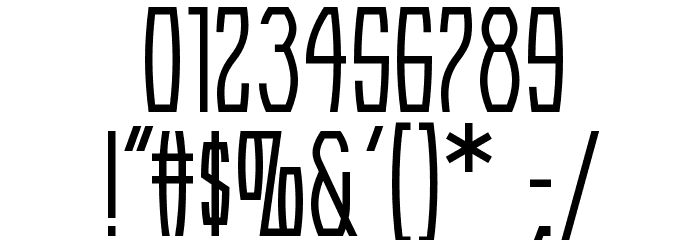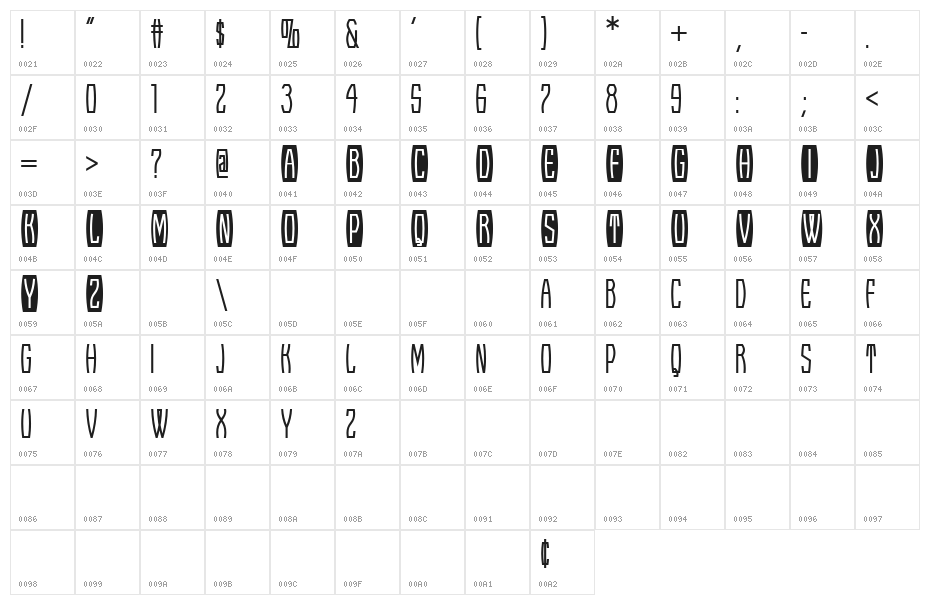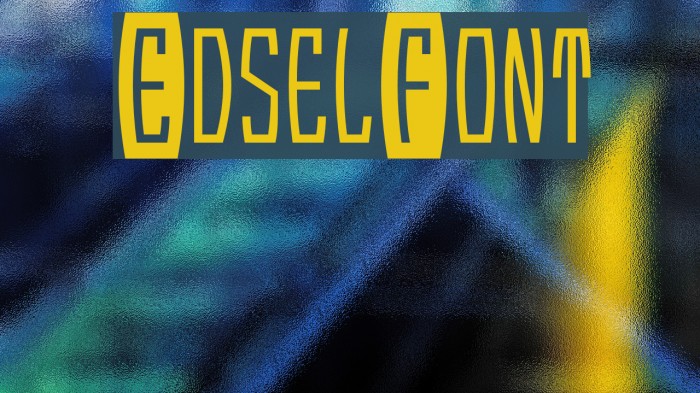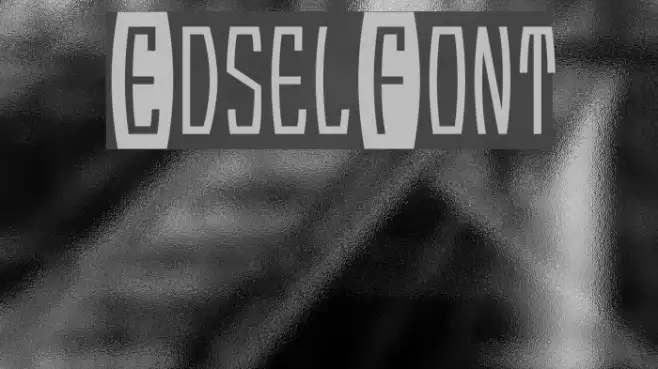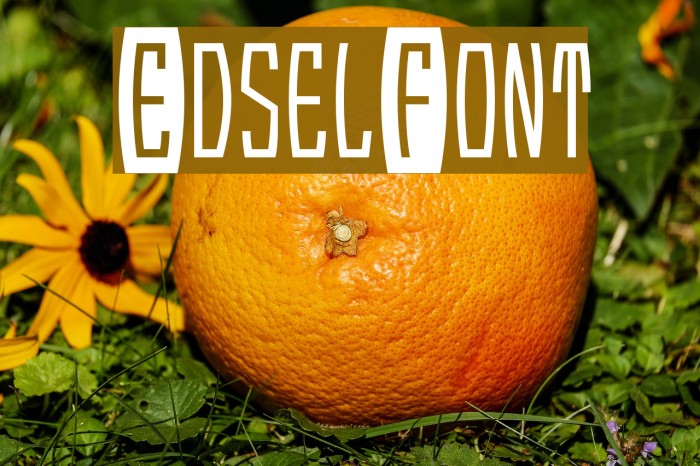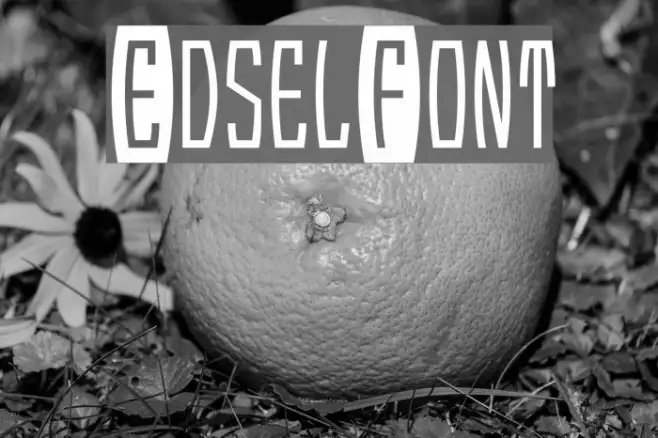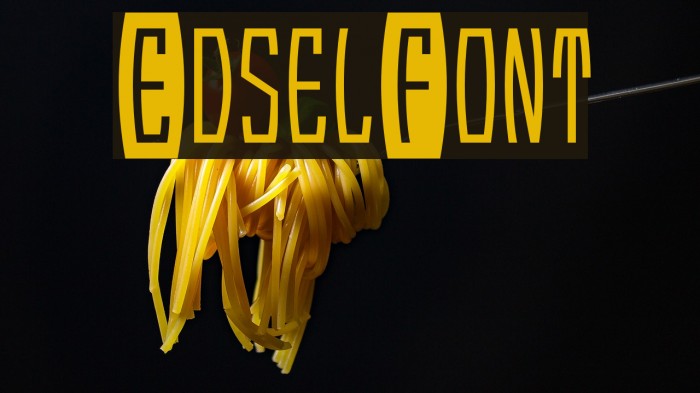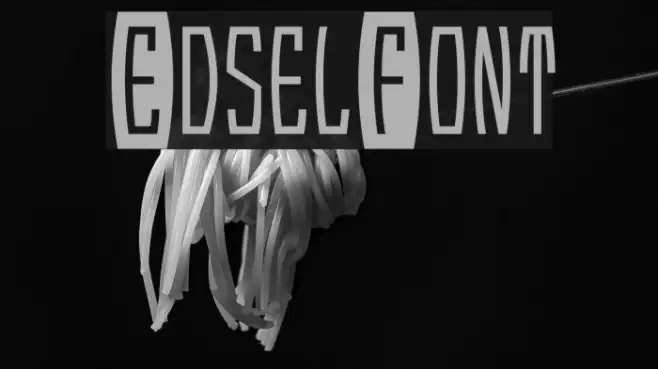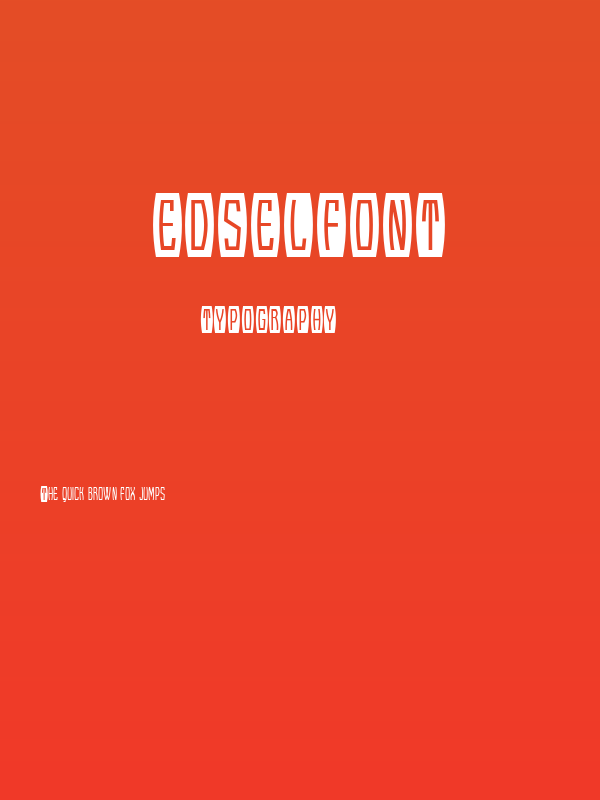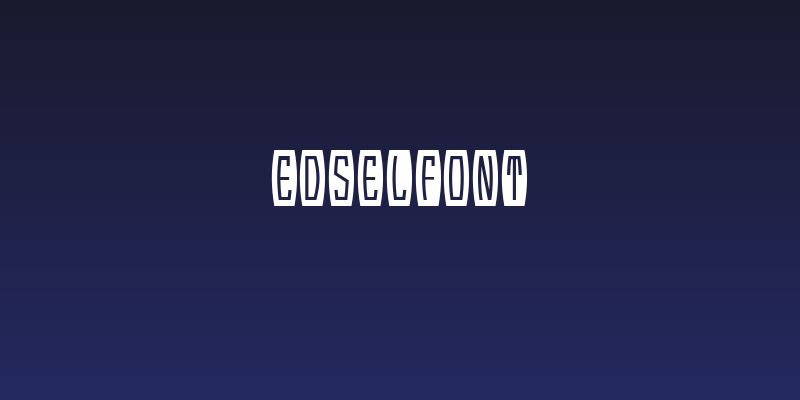
EdselFont Font
EdselFont Description
This font features a bold and geometric design with a distinct retro flair. The uppercase letters are enclosed in rectangular shapes, giving them a unique, blocky appearance. The lowercase letters are tall and narrow, maintaining a consistent width that complements the uppercase style. The numbers and special characters follow the same geometric theme, ensuring a cohesive look across all characters. The font's boldness and distinctive style make it ideal for eye-catching designs.